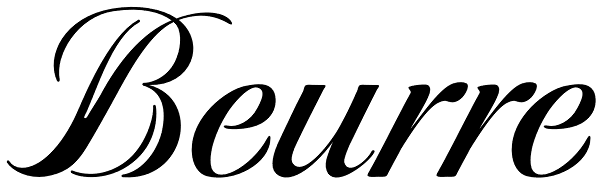
Beurre
In thinking about a way to express the character of this script, it occurred to me that the splitting of the main downstrokes in the caps is almost like when knife cuts into butter. Picture a butter knife that slices into butter, slowly wedging the...